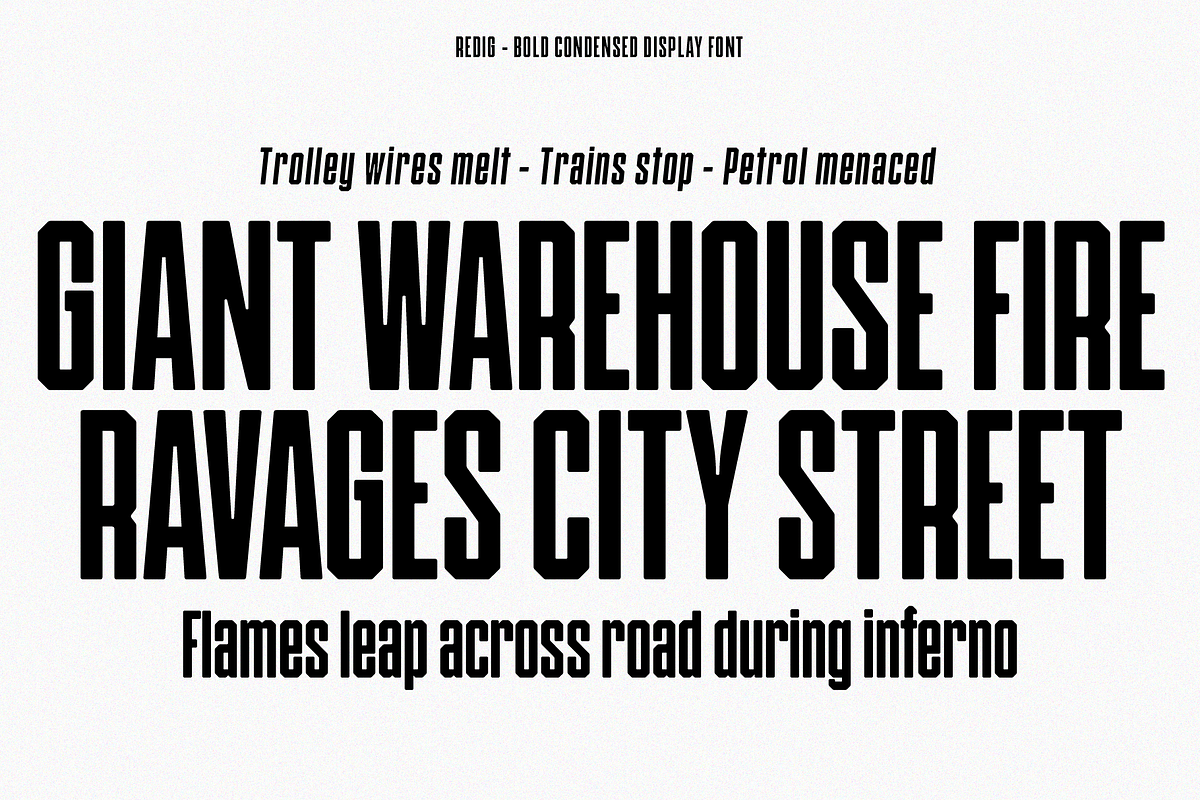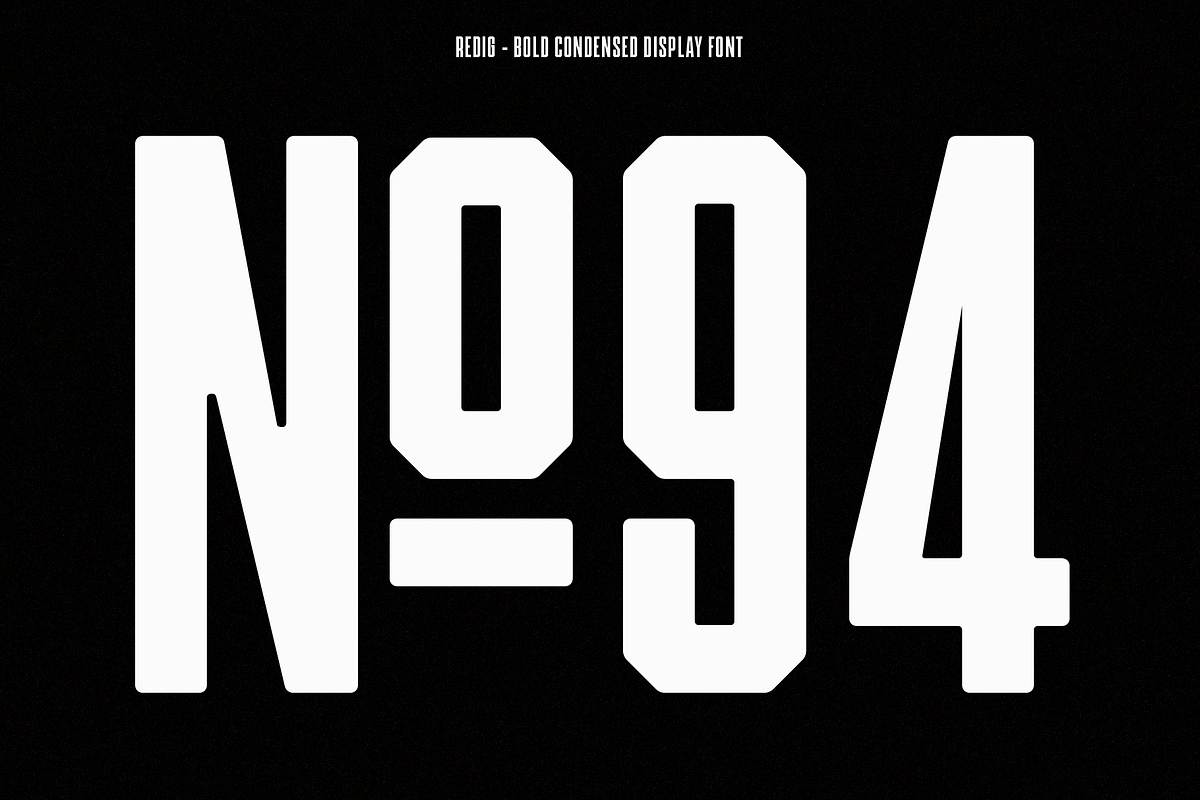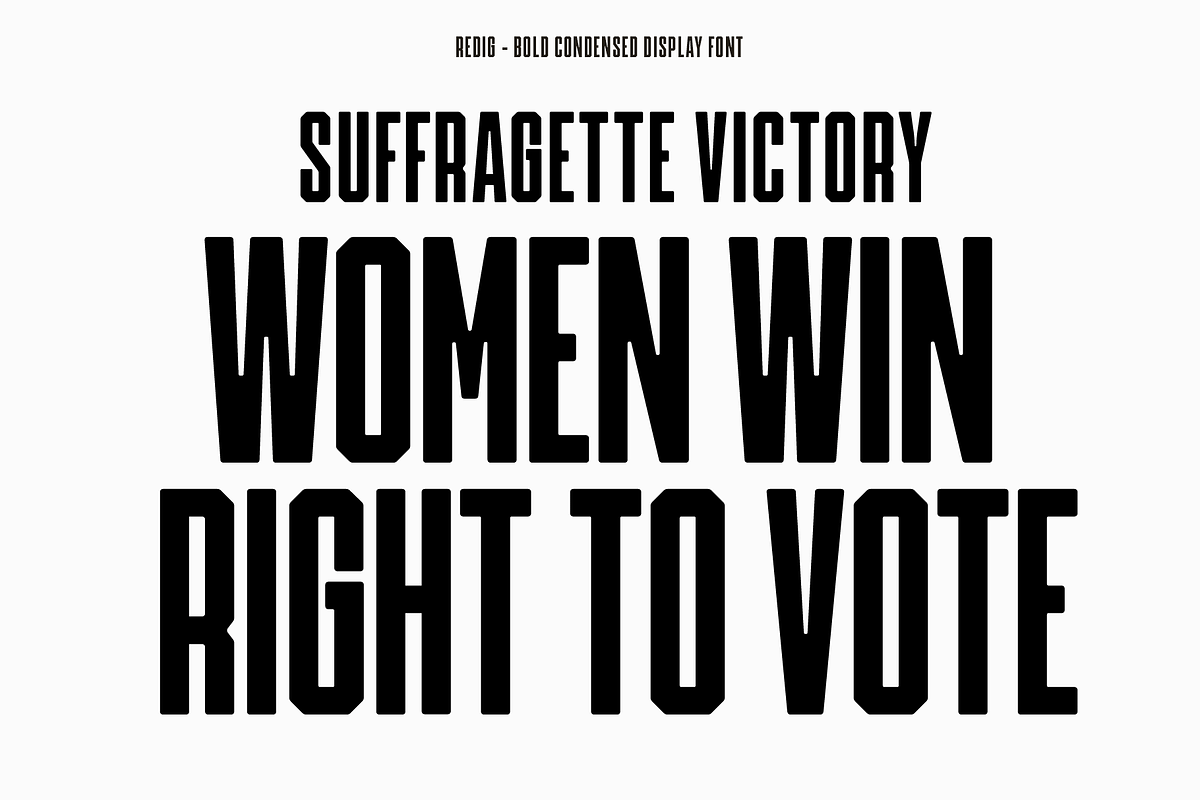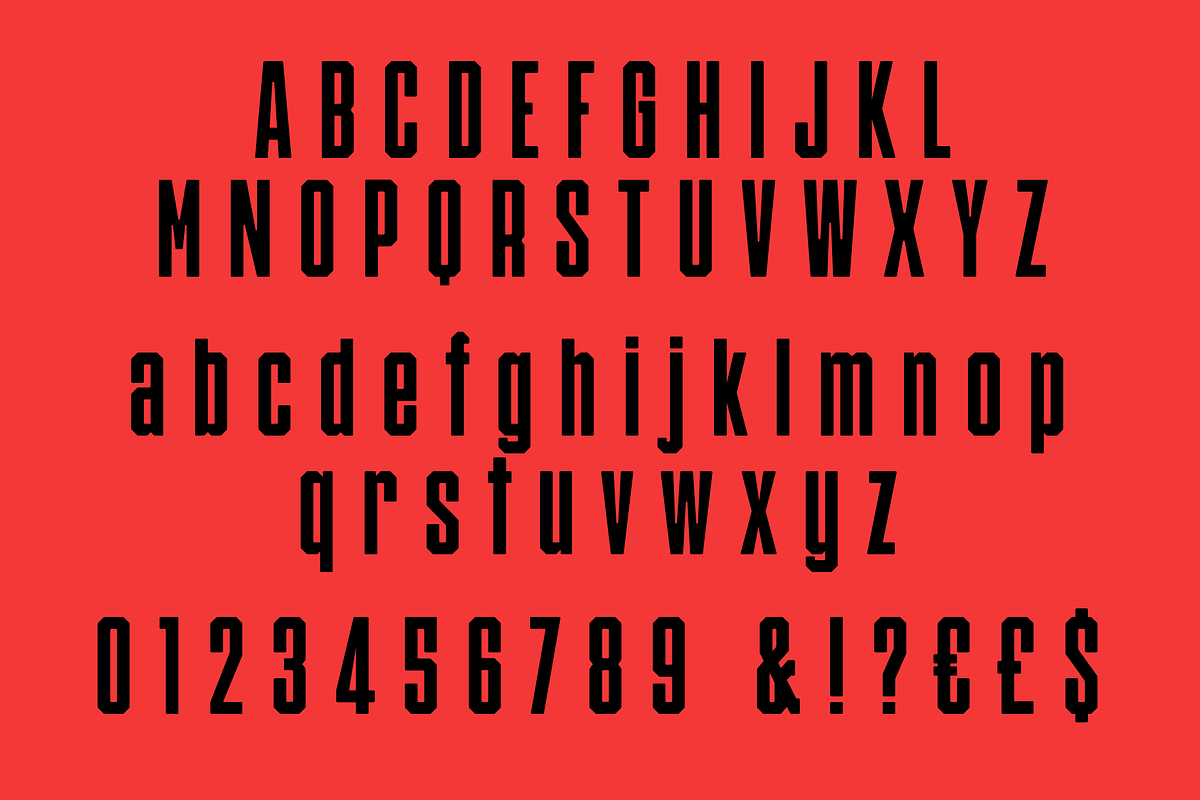
Redig - Condensed bold sans
Redig is a bold condensed display typeface with an assertive and athletic aesthetic. Chamfered corners with rounded edges smooths out some harshness and the x-height is generous.